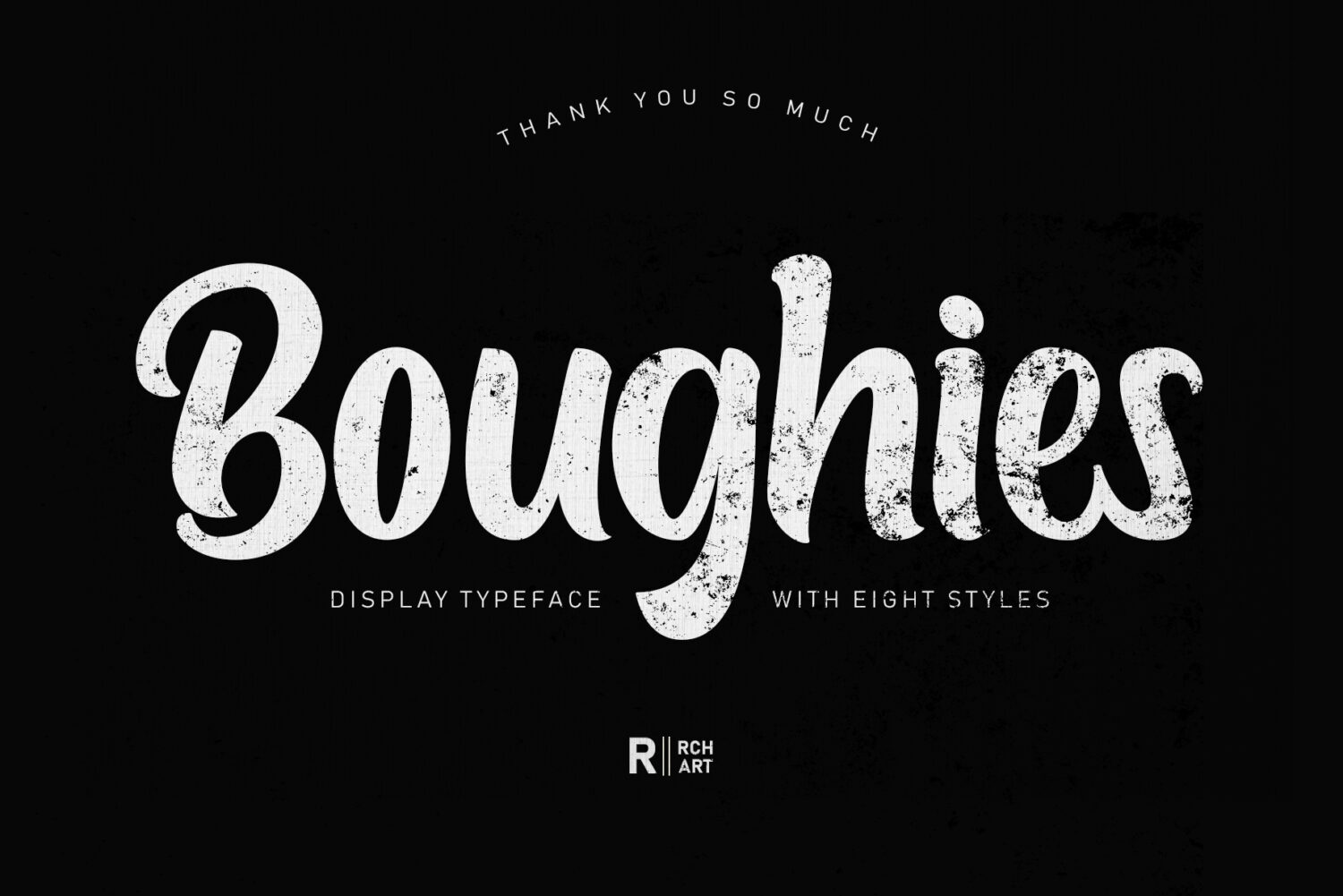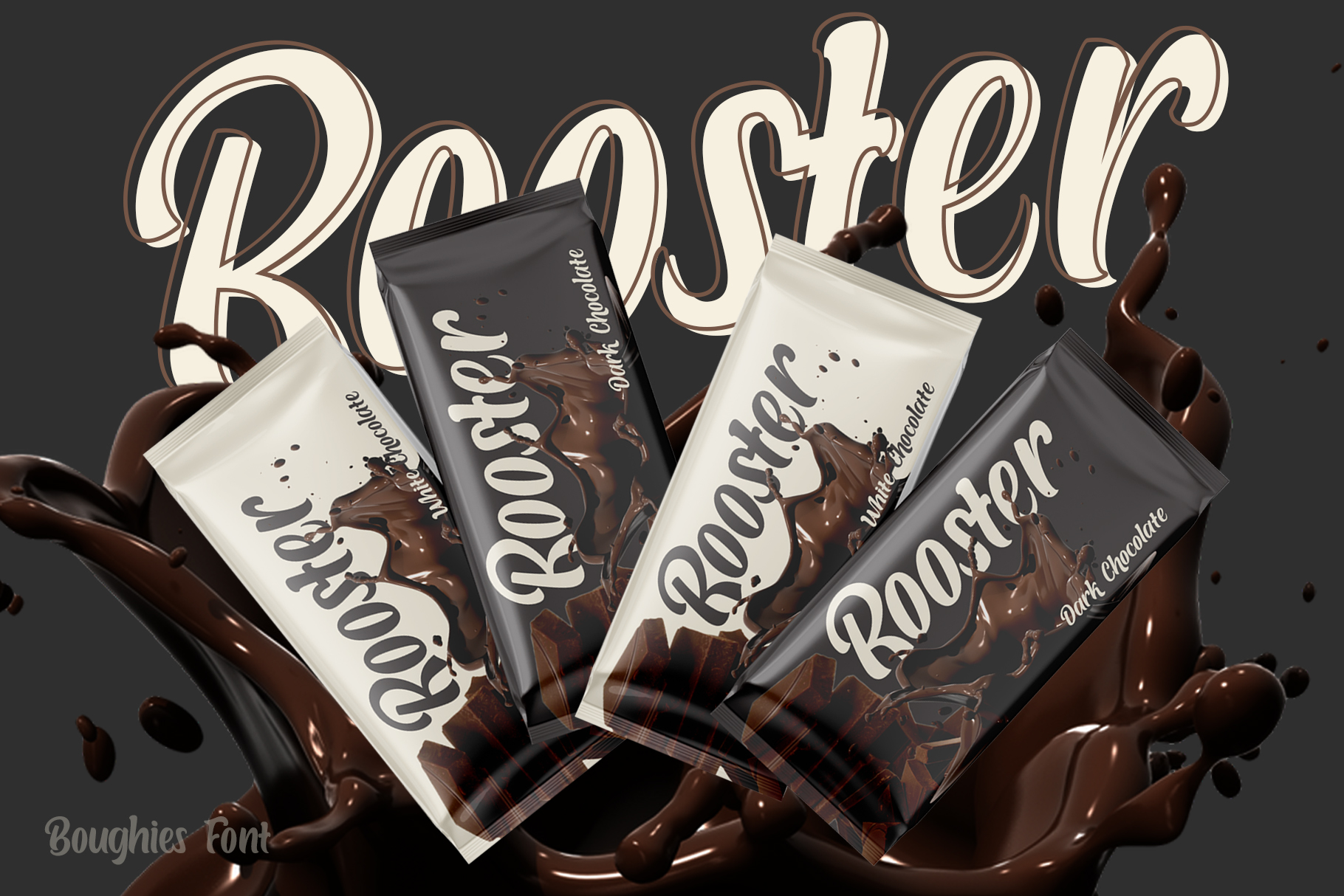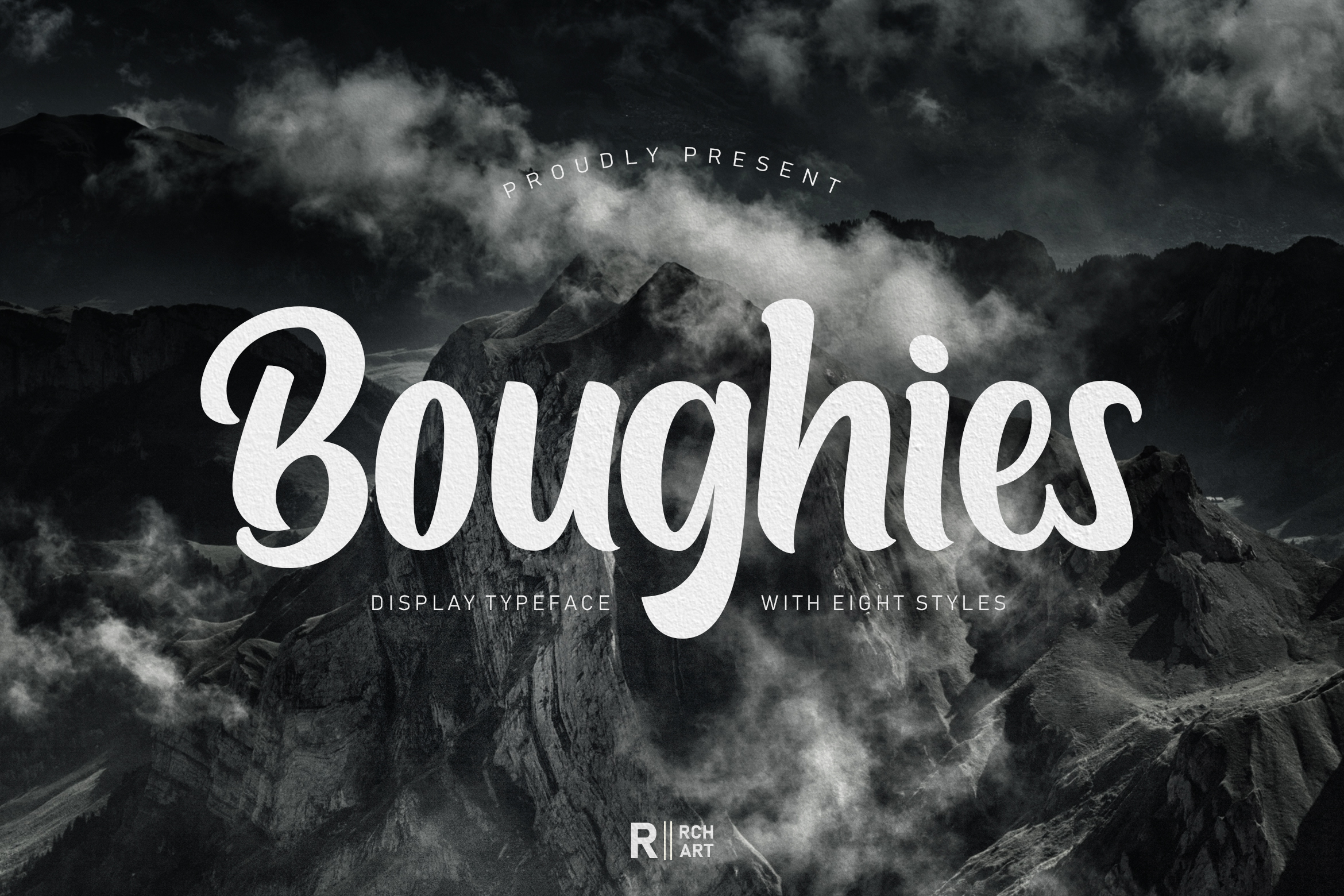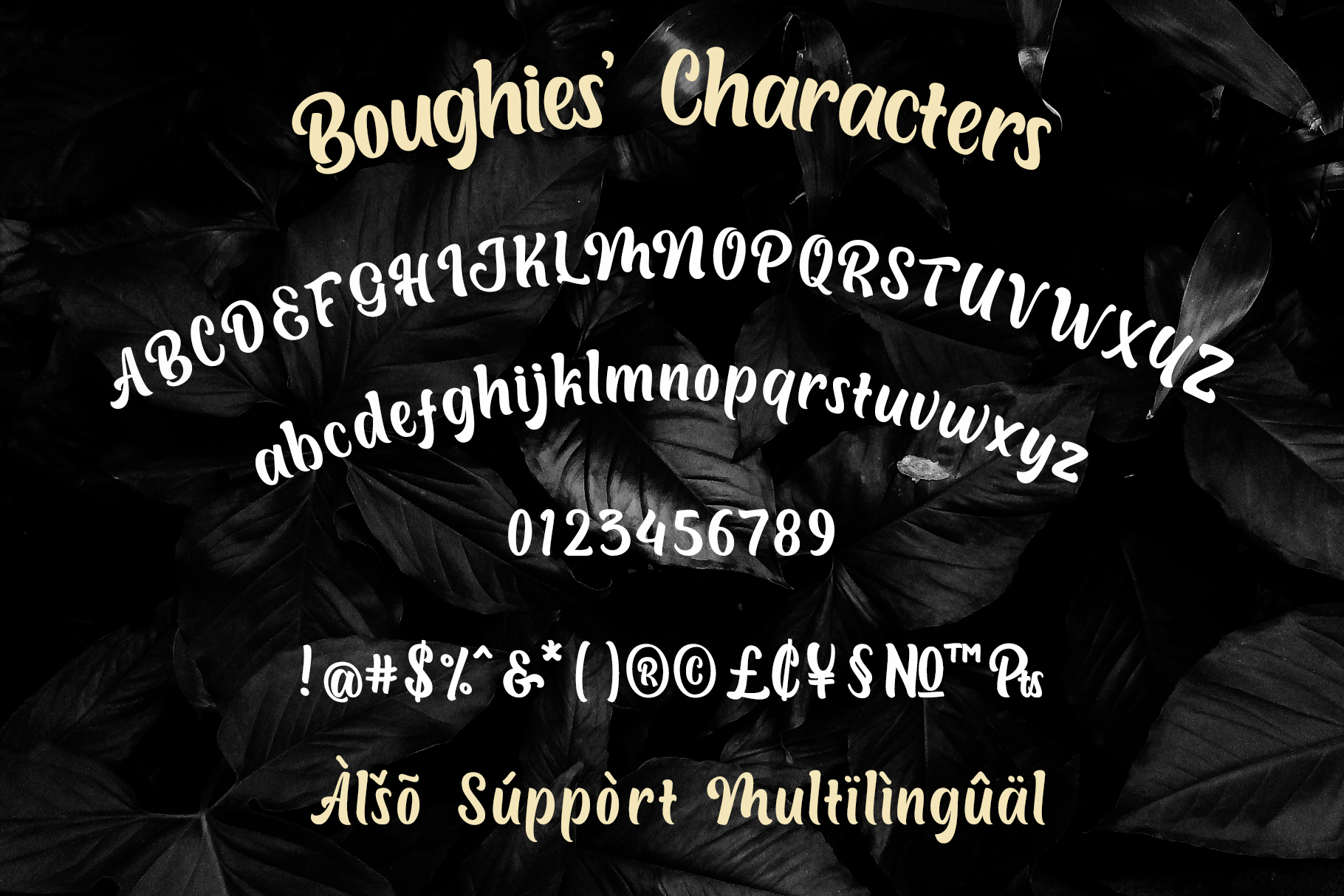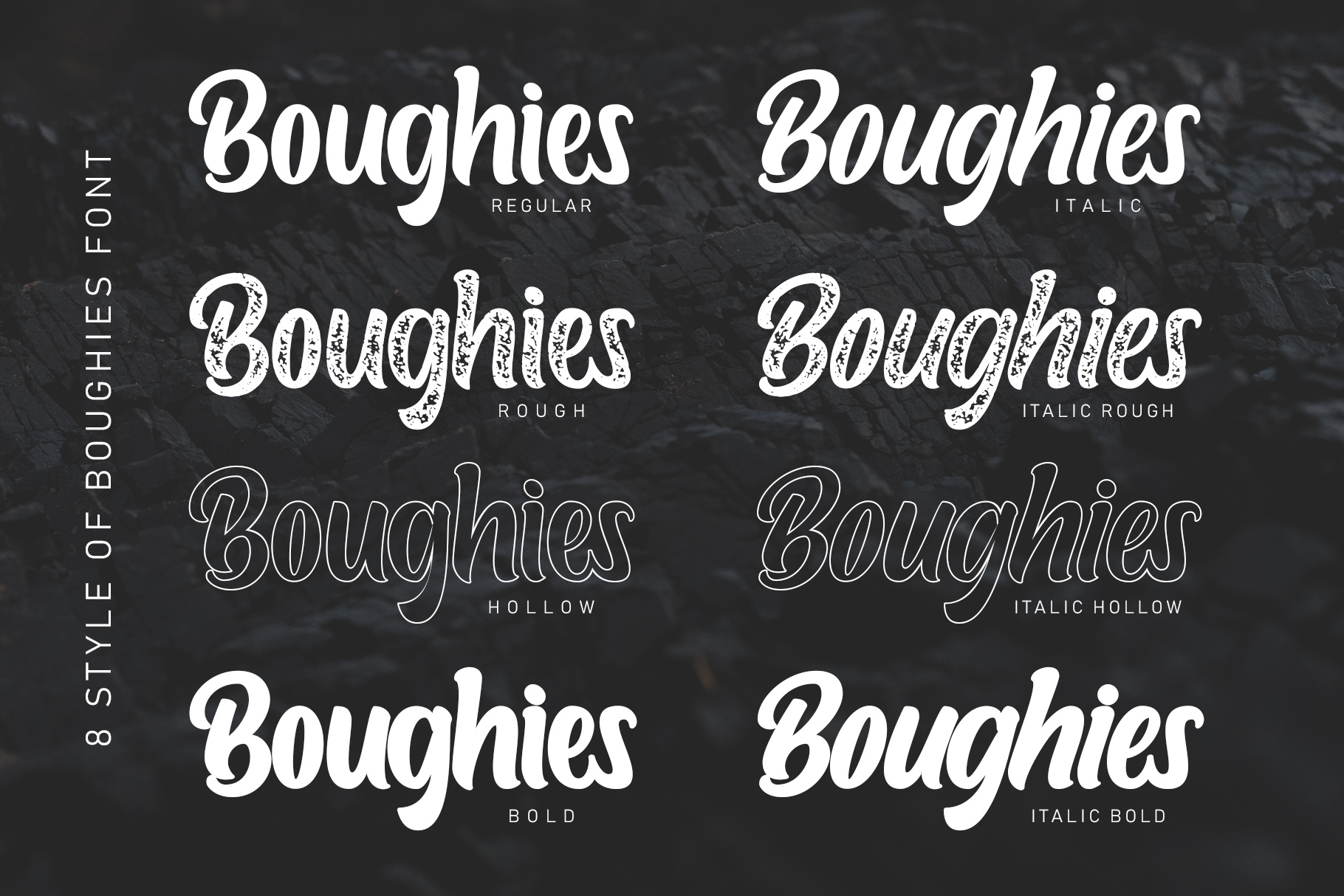
Free Font Boughies
Free Font Boughies is modern bold font. Free Font Boughies typeface is great for Branding, Logo Design, Lettering, Logotype, Clothing, Poster, magazine, and another design project. This free typeface was designed by talented Rochadi Sudarma. If you like it don’t forget to check out the full version.